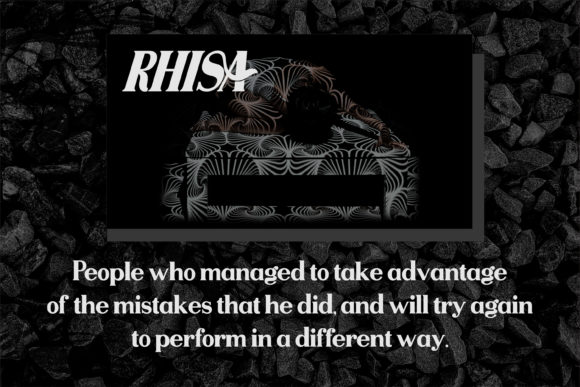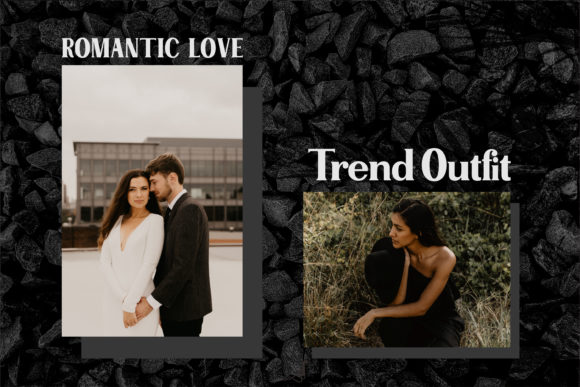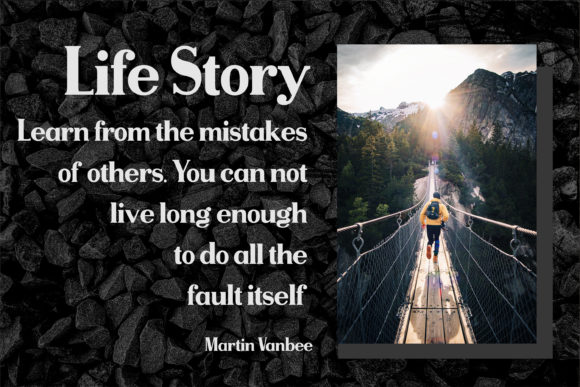
Introduction to Rhisa Font
Rhisa is a beautiful serif font, suitable for any projects such as logos, branding projects, homeware designs, product packaging, mugs, quotes, posters, shopping bags, t-shirts, book covers, name cards, invitation cards, greeting cards, labels, photography, watermark, special events, and all your other luxury projects that need a premium signature taste.
Rhisa is a beautiful serif font, suitable for any projects such as logos, branding projects, homeware designs, product packaging, mugs, quotes, posters, shopping bags, t-shirts, book covers, name card
Key Features of Rhisa Font